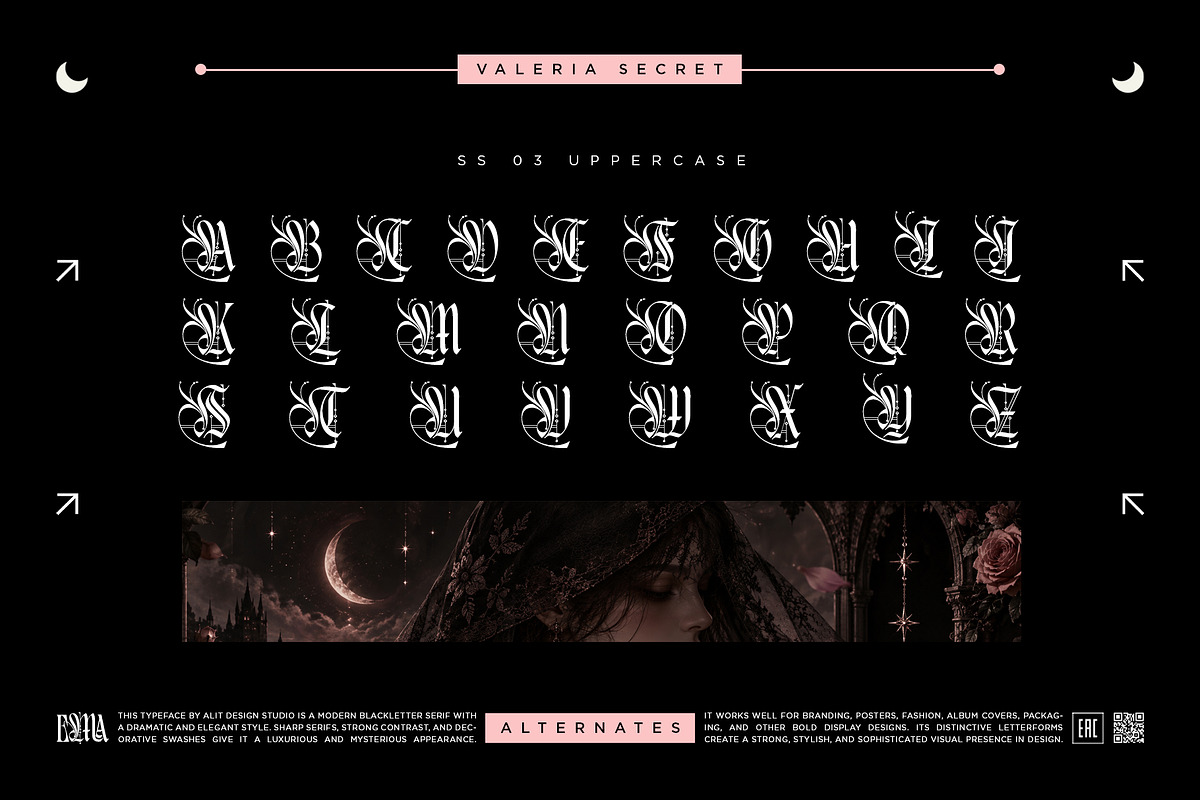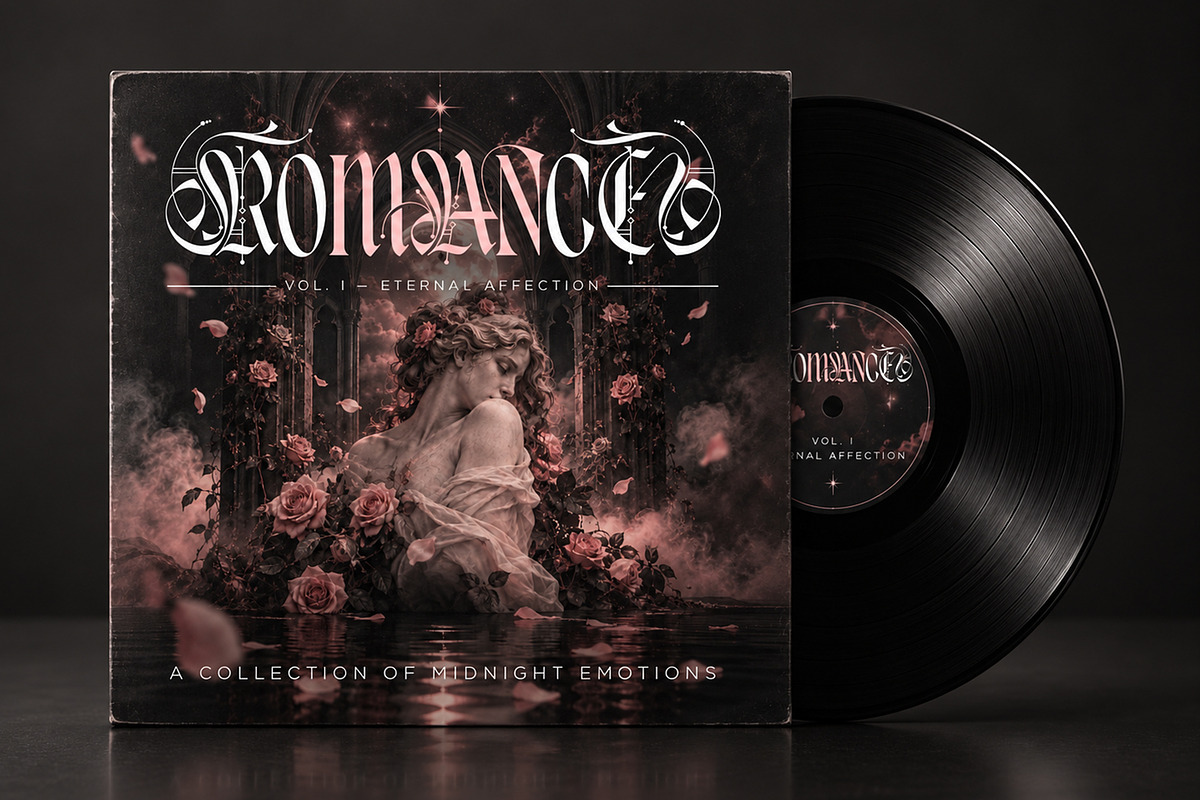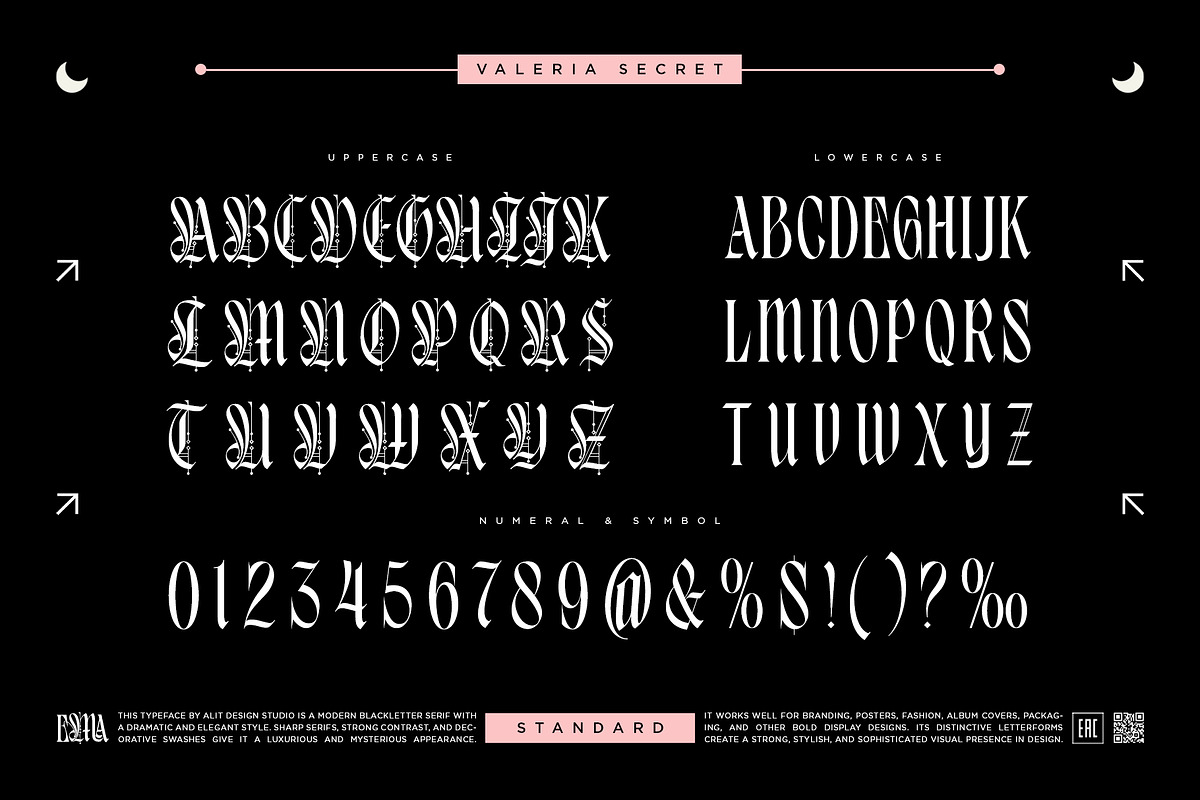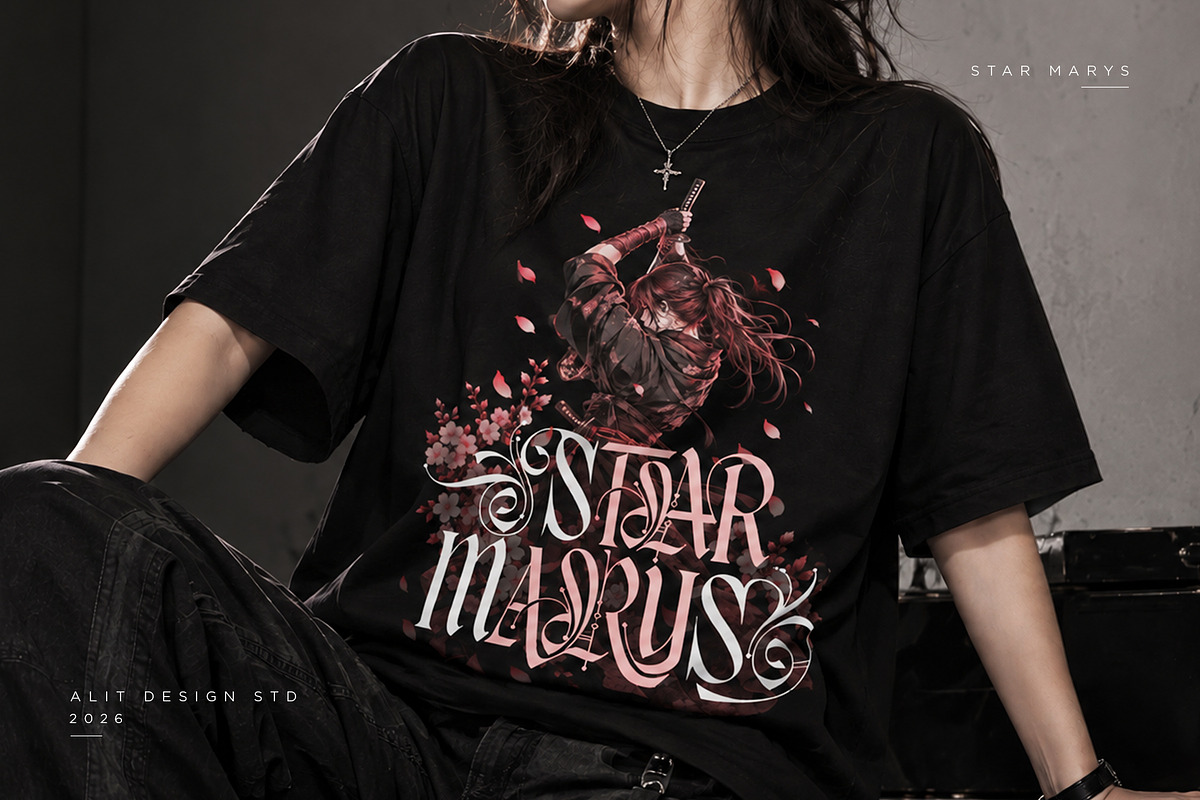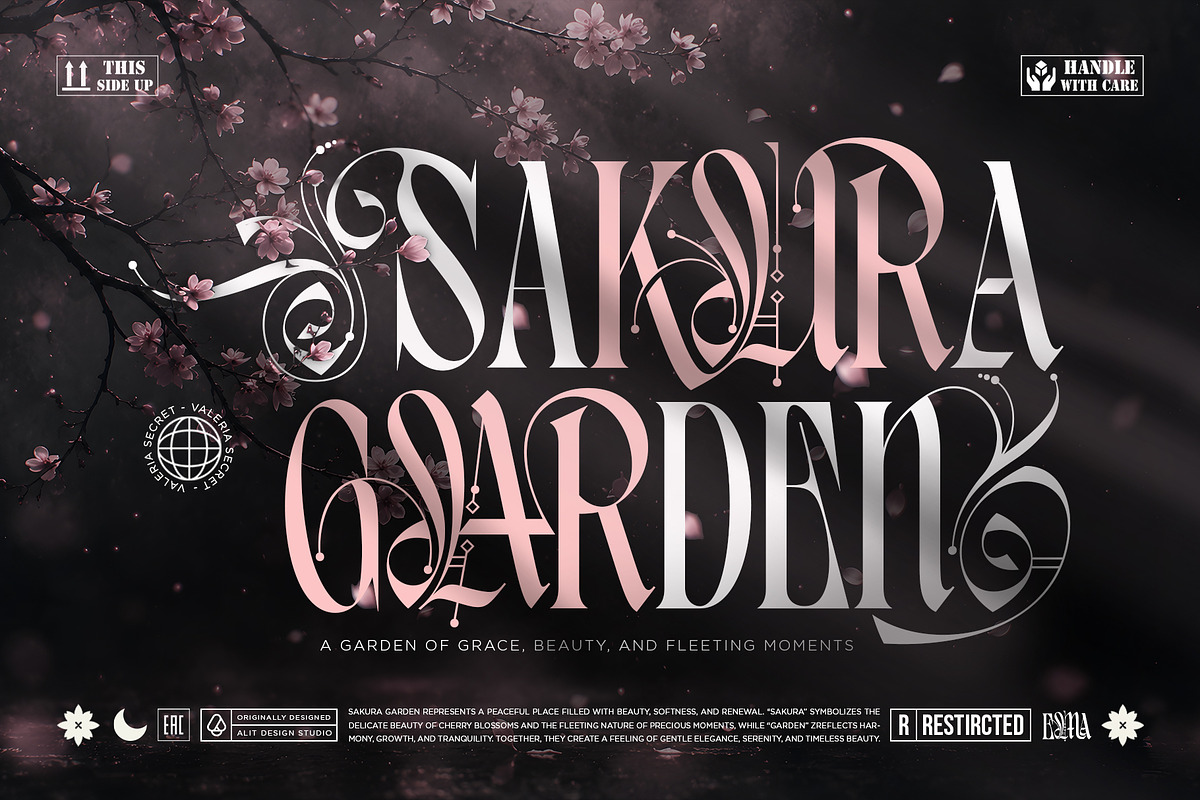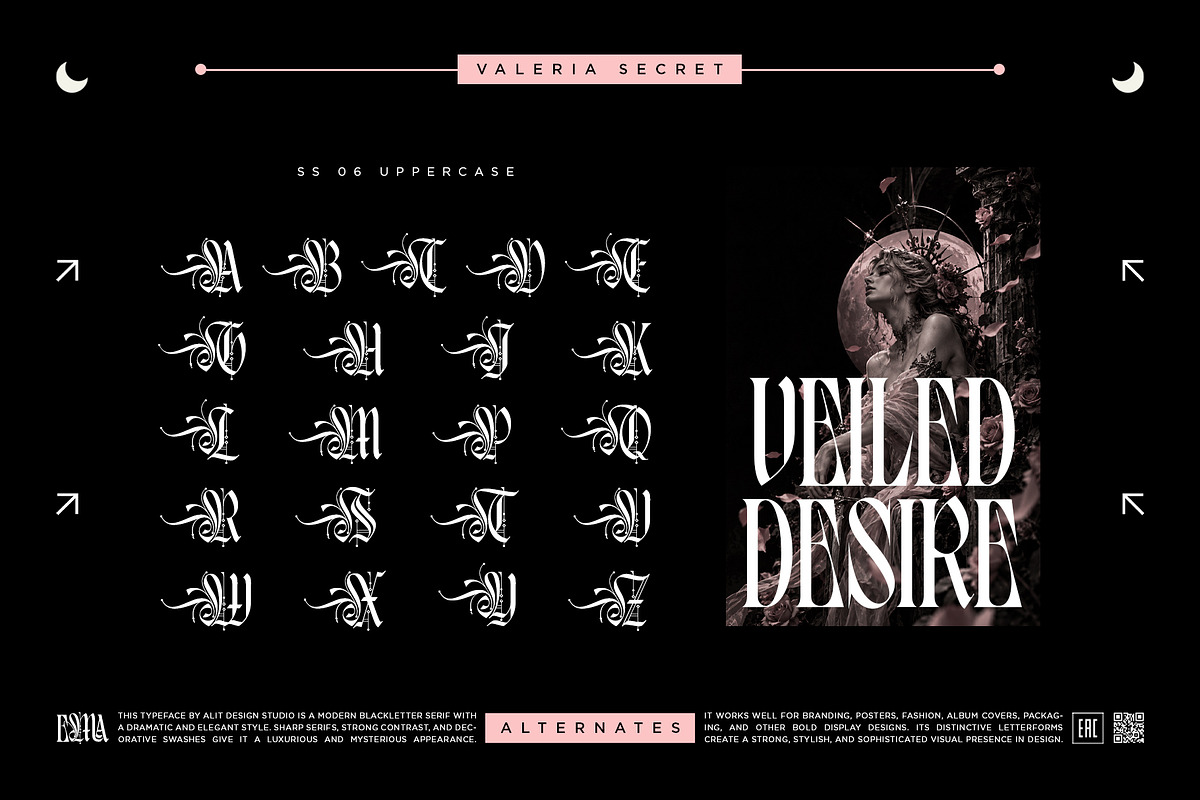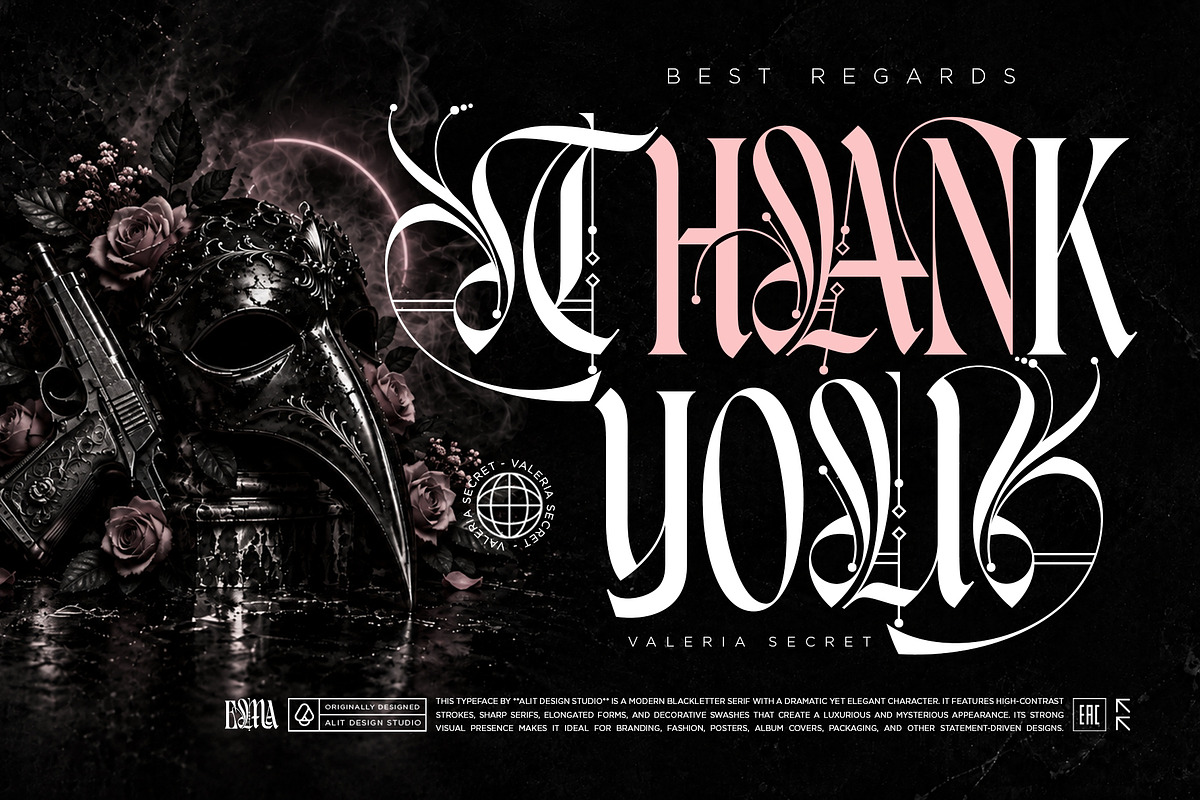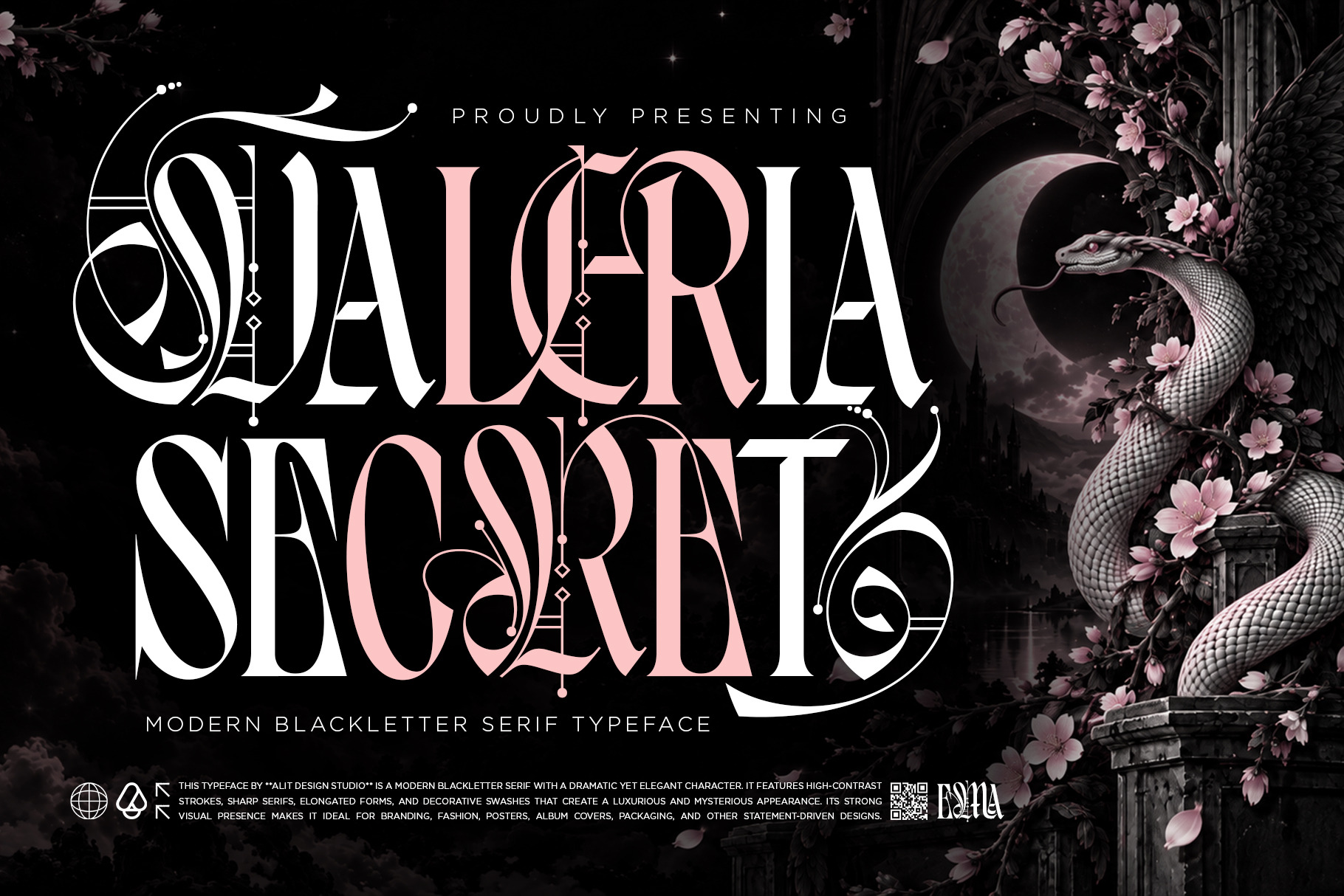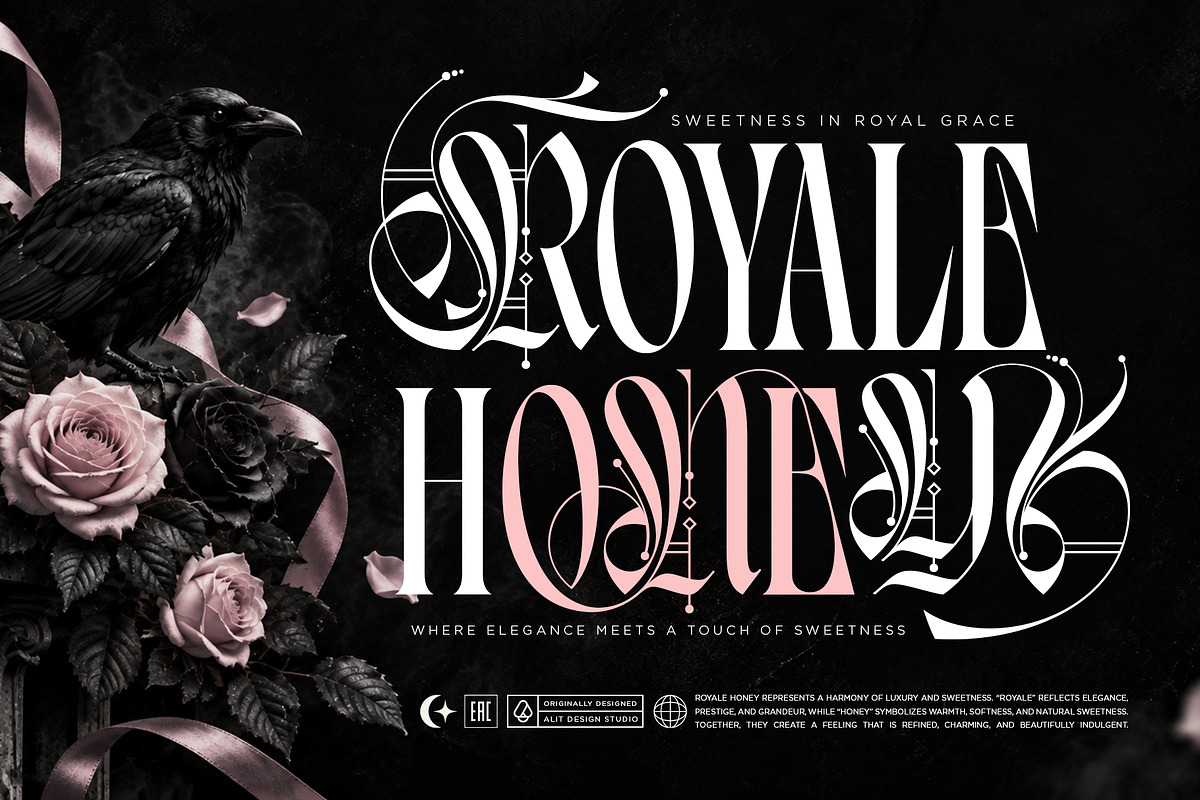
Valeria Secret Typeface
Valeria Secret - Modern Blackletter Serif Typeface
Introducing Valeria Secret, a modern typographic masterpiece that blends dramatic character with timeless elegance. Designed to command attention, this modern blackletter serif typeface features high-contrast strokes and sharp serifs. Its elongated forms, paired with decorative swashes, create a luxurious yet mysterious visual appearance.
With a massive collection of 933 glyphs, Valeria Secret provides boundless creative freedom for graphic designers. This font is equipped with impressive OpenType features, including six alternate stylistic sets (SS01 through SS06). Each alternate set offers unique ornamental touches to modify both uppercase and lowercase letters, allowing you to transform standard text into a stunning display piece with a sophisticated visual presence.
Elegant Uppercase and Lowercase characters.
Comprehensive Numerals and Punctuation.
Multilingual Support to reach a global audience.
Extensive collection of Ligatures for seamless letter transitions.
Stylistic Sets (SS01 - SS06) rich with decorative swashes.
A total of 933 Glyphs for limitless typographic combinations.
Perfect For: Valeria Secret's strong and stylish visual presence makes it the ideal choice for various statement-driven design projects. This font works exceptionally well for:
Branding and Identity Design.
Posters and Graphic Design.
Fashion Industry and Apparel Design.
Music Album Covers.
Premium Packaging Design.